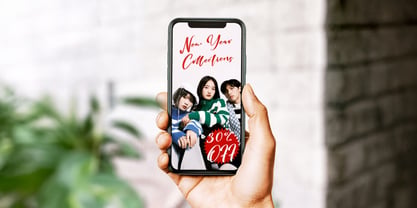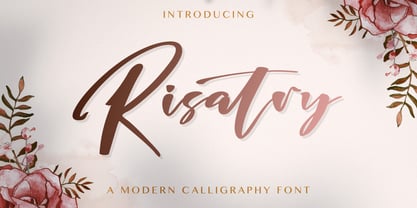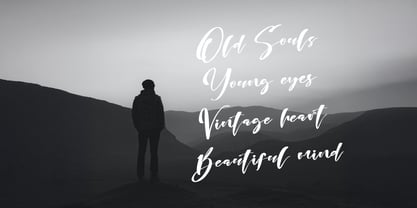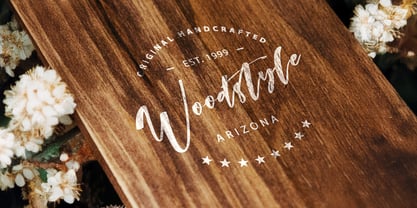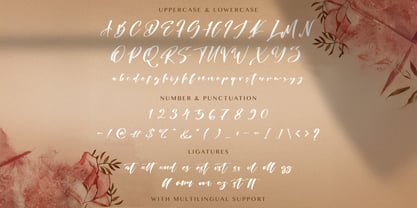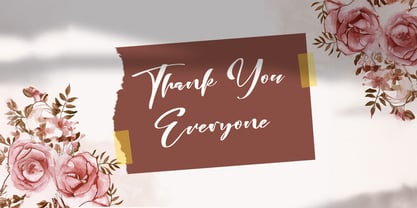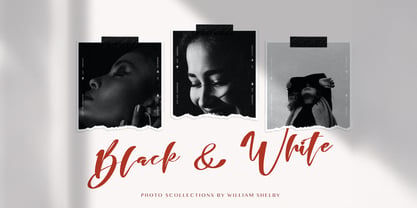
The Risatry Font Family was designed by Virgiawan Listanto and published by Stringlabs Creative Studio. Risatry contains 1 styles. More about this family
Introducing Risatry, a graceful calligraphy font that blends classic beauty with a modern twist. Featuring flowing strokes and delicate curves, Risatry brings a romantic, handwritten feel to any design project. Perfect for wedding invitations, feminine branding, elegant logos, and heartfelt quotes, Risatry adds a touch of sophistication and charm that will elevate your creative work.
Designers: Virgiawan Listanto
Foundry: Stringlabs Creative Studio
Risatry